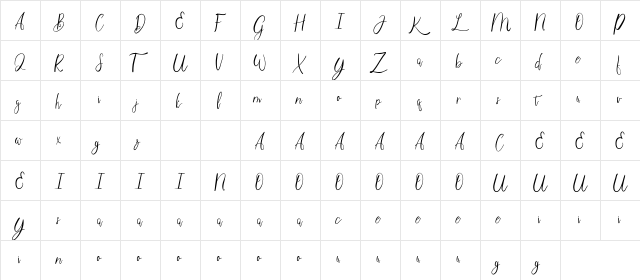
SweetheartPersonal Regular Font Preview
SweetheartPersonal Regular
SweetheartPersonal Regular Font Details
| Foundry | Masdika Studio |
| Designer | Septiandika Pratama |
Design Context for SweetheartPersonal Typeface
SweetheartPersonal is a composed and adaptable typeface that performs quietly and consistently across a wide range of design contexts.